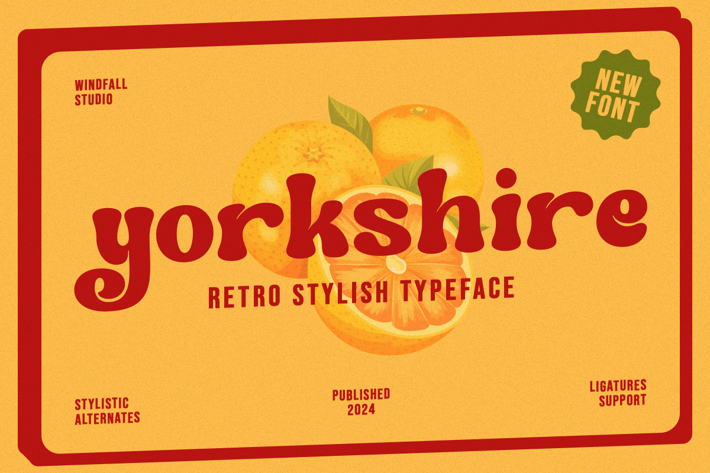
Yorkshire - Modern Retro Display Typeface
Yorkshire is a sophisticated retro font with a touch of timeless art deco elegance and futuristic design cues. Featuring smooth cursive lines and balanced proportions reminiscent of Helvetica and Futura, this font bridges the gap between classic and modern aesthetics. Yorkshire is perfect for corporate, college, and premium branding projects, offering a fancy and cinematic appeal. With subtle minimal letterforms and thin accents, itβs ideal for designs that embrace summer, nature, and tropical vibes. Whether you're working on beach-inspired themes or sleek, modern minimal visuals, Yorkshire will enhance your work with its bold yet refined character.
Yorkshire Features:
Alternates & Ligatures
Numerals & Punctuation
Accented characters